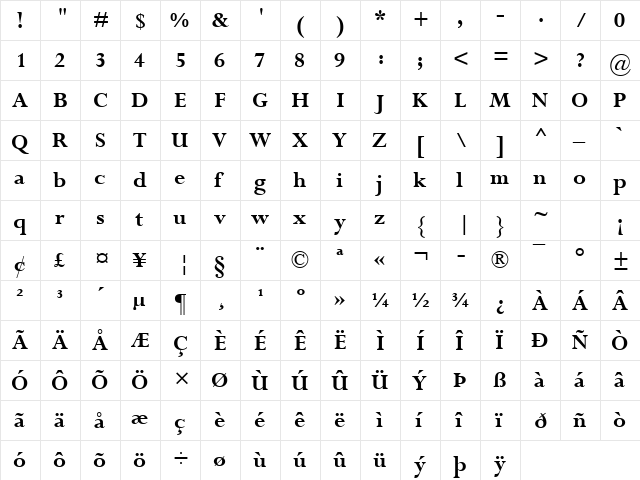
Perpetua MT Bold
| Foundry | Agfa Monotype Corporation |
| Designer | Eric Gill |
Design Context for Perpetua MT Typeface
Perpetua MT offers clean, dependable letterforms without strong stylistic allegiance, making it a practical choice for designers who need flexibility. The heavy weight commands attention and anchors typographic hierarchies.